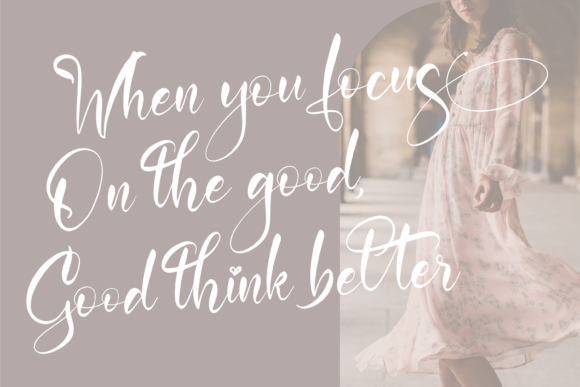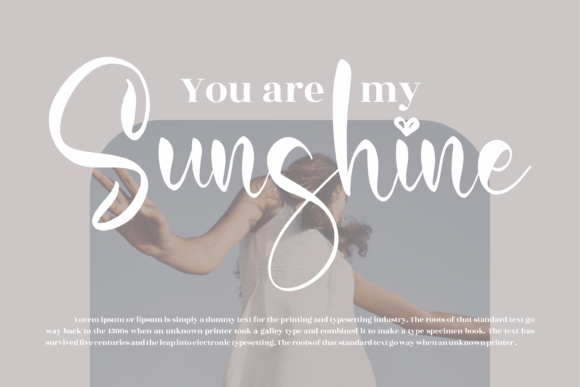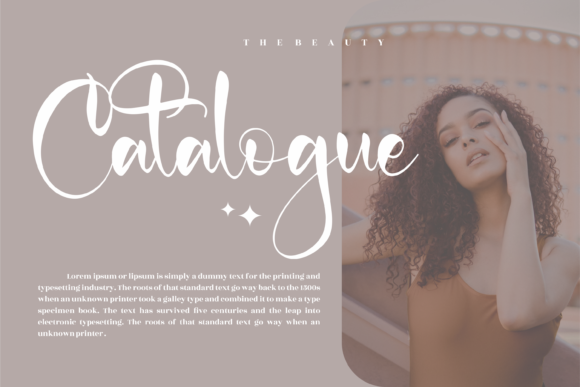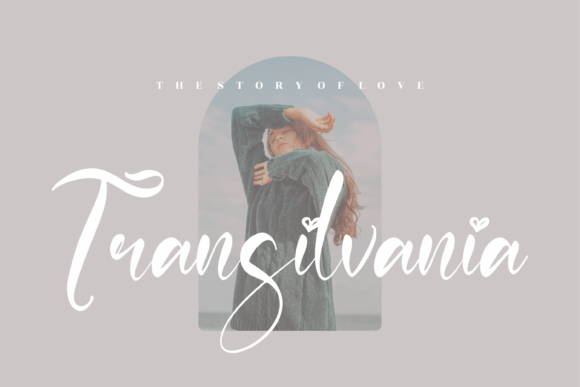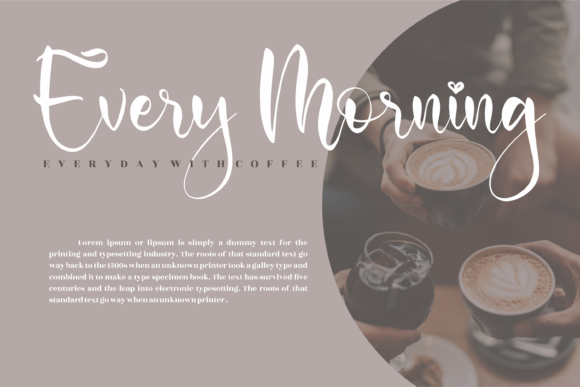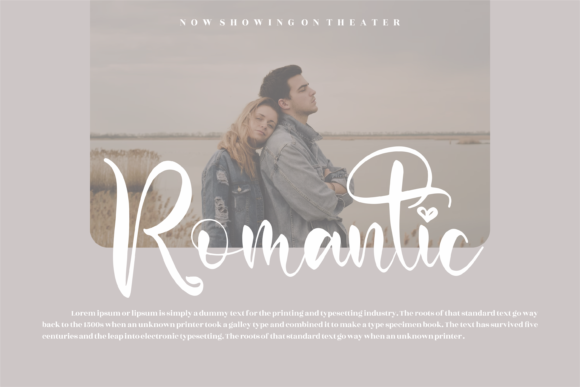
Have you ever been working on a design and suddenly, the perfect font pops into your mind? That’s exactly what happened to us when we stumbled upon the Babyshine Font. Its elegant script style is reminiscent of handwritten notes and adds a touch of warmth to any project.
Babyshine Font is a beautiful script font designed for a variety of applications, from logos and branding projects to homeware designs, product packaging, and more. Its versatility and timeless appeal make it a valuable addition to any designer’s toolkit. With the Babyshine Font, you can add a personal touch to your designs, making them stand out from the crowd and leaving a lasting impression on your audience.
Whether you’re a seasoned designer or just starting out, the Babyshine Font is sure to inspire your next creative project. Its beauty and versatility make it a must-have for anyone looking to add a touch of elegance to their designs.
Babyshine Font Key Features
- Unique Characteristics: The Babyshine Font features a unique, hand-drawn style with soft, rounded edges and a playful, childlike feel.
Babyshine Font Review
I recently had the chance to work with the Babyshine Font and I must say it’s a unique and playful addition to any design project. ✨
- The font’s hand-drawn feel gives it a personal and whimsical touch.
- The font is highly customizable, allowing you to adjust the weight, size, and spacing to suit your needs.
- The font includes a wide range of characters, including punctuation and symbols.
- The font may not be suitable for formal or professional projects, as it has a more casual and childlike feel.
- The font can be difficult to read in certain sizes or at certain distances, which may affect its usability.
- The font’s customization options can be overwhelming, especially for beginners.
Overall, I would say that the Babyshine Font is a fun and creative choice for designers who want to add a playful touch to their projects. While it may not be suitable for every project, it’s a great option for designers who want to stand out and add some personality to their work.
Tips for Getting the Most Out of Babyshine Font
Use Babyshine Font for playful and whimsical designs, such as baby-themed invitations, nursery decor, and children’s book illustrations.
Experiment with different font sizes and colors to create visual interest and emphasis.
Pair Babyshine Font with other playful fonts or graphics to create a cohesive and eye-catching design.
Babyshine Font is commonly used for:
1. Baby-themed invitations and announcements.
2. Nursery decor and wall art.
3. Children’s book illustrations and design.
4. Playful branding and marketing materials.
Playfair Display is an elegant, high-end serif font that is perfect for creating luxurious and sophisticated designs. It has a classic feel, with intricate details and a touch of vintage charm. This font is ideal for wedding invitations, luxury branding, and high-end packaging.
Playfair Display is a good alternative to Babyshine Font because it also has a high-end feel, but with a more classic and sophisticated look. While Babyshine Font has a more modern and minimalist aesthetic, Playfair Display is more ornate and luxurious.
Lato is a clean and modern sans-serif font that is perfect for creating sleek and minimalist designs. It has a friendly and approachable feel, making it ideal for digital products, websites, and mobile apps.